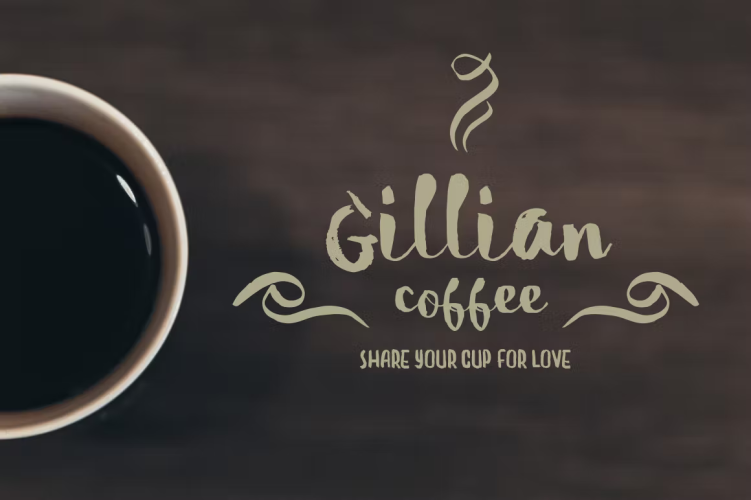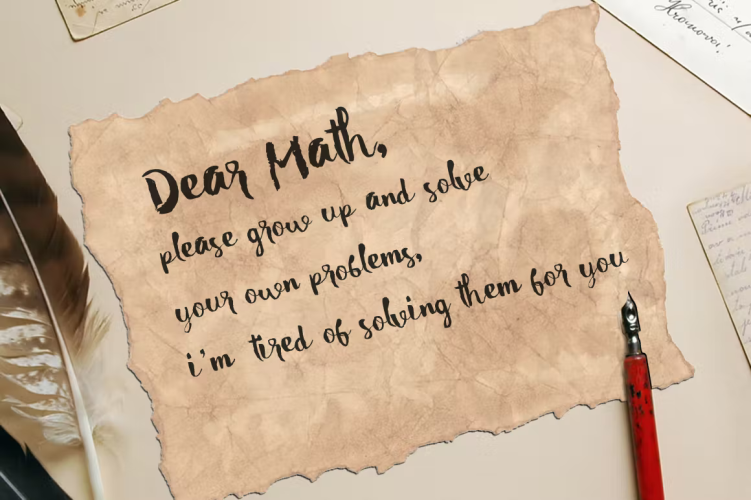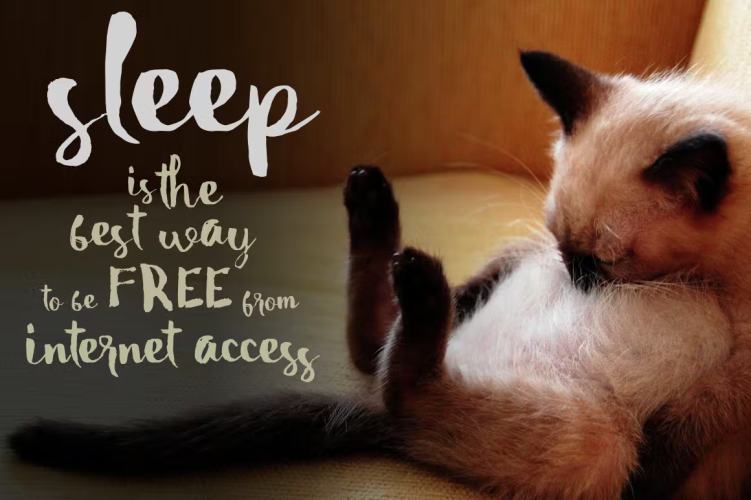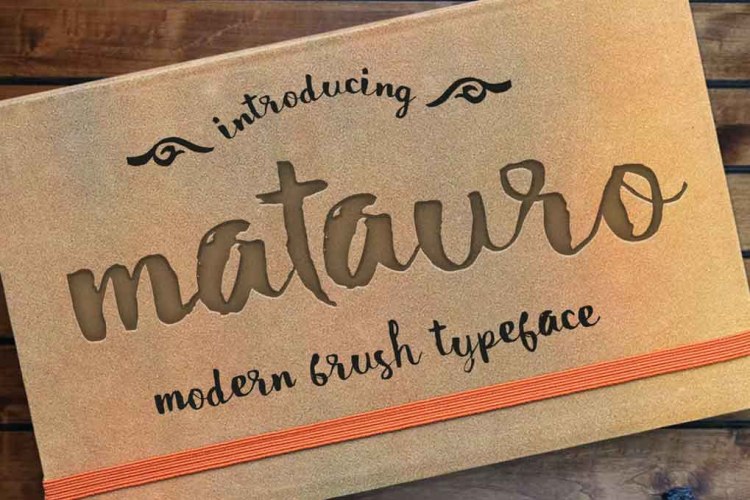
Matauro Font
Yoooo. Please introduce Matauro, introduce the sun. Matauro is “sun” taken from acehnese word, part of Indonesia. Matauro is kind of typeface that look energic, free, imperfect, and really cool. its suit for any kind of your creative typography, and there are a lot of free graphic ornament in vector. its for you.
A short phrase in Matauro Font carries warmth that a typeset sans cannot fake; keep the rest of the card plain.
Chalkboard-style headings in Matauro Font make a menu feel hand-made. Keep the dish descriptions in a simple face so prices stay readable.
One line of Matauro Font over a photo is enough; the script carries the tone and the caption does the work.
What kind of work does Matauro Font suit?
It sits in the Script And Handwritten group and reads as creative, free, script, script and handwritten. That makes it a candidate wherever those qualities help: headings, packaging, social graphics and brand work. Set it at the size you plan to use before deciding.